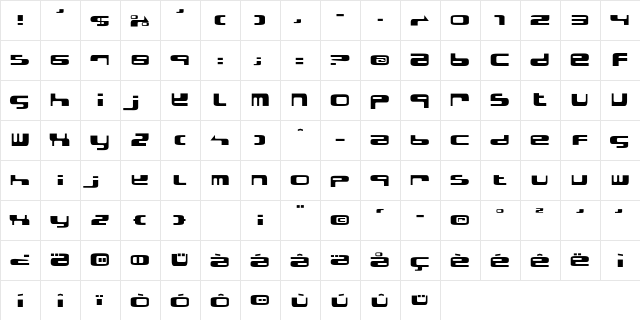
ElectroBazar Regular
Design Context for ElectroBazar Typeface
ElectroBazar is a composed and adaptable typeface that performs quietly and consistently across a wide range of design contexts.